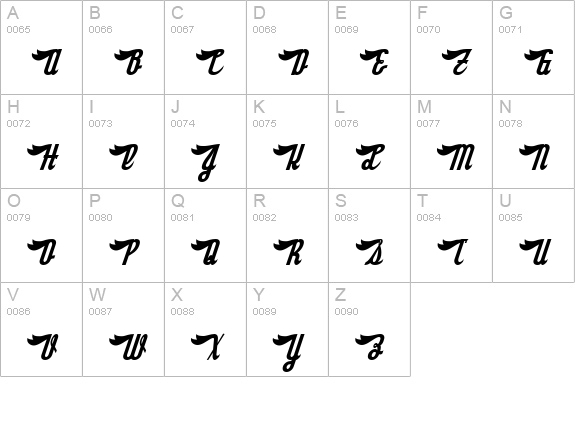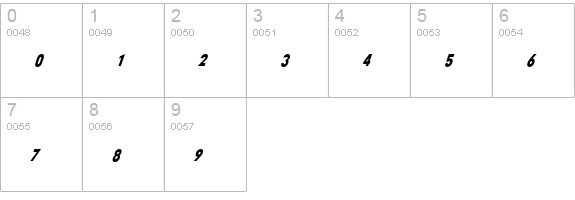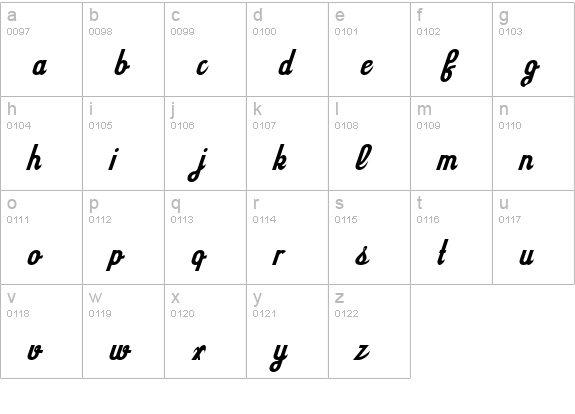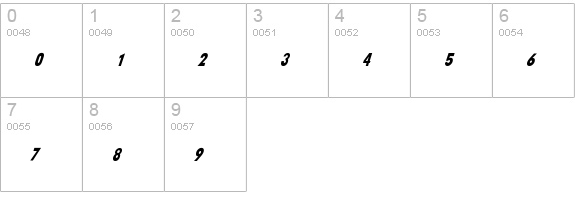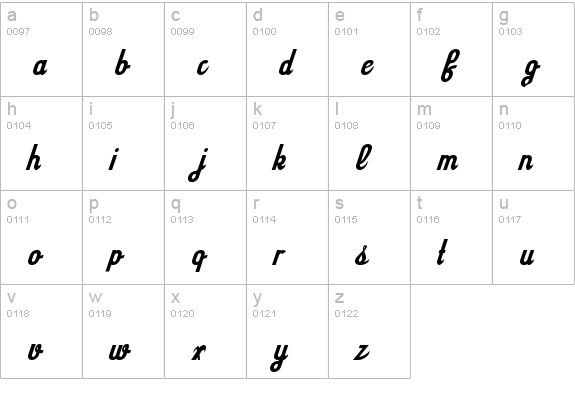
Sloe Gin Rickey Font Details
Introducing Sloe Gin Rickey, an exquisite font that embodies elegance and sophistication. With its unique blend of vintage charm and modern flair, this typeface adds a touch of class to any design project. Sloe Gin Rickey is not just any font – it is a work of art meticulously crafted to capture the essence of timeless beauty. Its smooth curves and delicate lines reflect the graceful strokes of a calligrapher's pen, while its bold letterforms command attention with their confident presence. This font exudes versatility, making it suitable for a wide range of applications. Whether you're designing a wedding invitation, a logo for a luxury brand, or a sophisticated website, Sloe Gin Rickey will elevate your work to new heights. But what sets Sloe Gin Rickey apart from other fonts is not just its stunning aesthetics; it's also the fact that it is freely available to download at FontsMarket.com. In a world where premium quality often comes with a hefty price tag, this font defies conventions by offering a truly exceptional typeface at no cost. Embrace the beauty of Sloe Gin Rickey and let it inspire your creativity. Experience the joy of using a font that not only enhances your designs but also respects your budget. Download Sloe Gin Rickey today from FontsMarket.com and discover the power of elegance, made free.